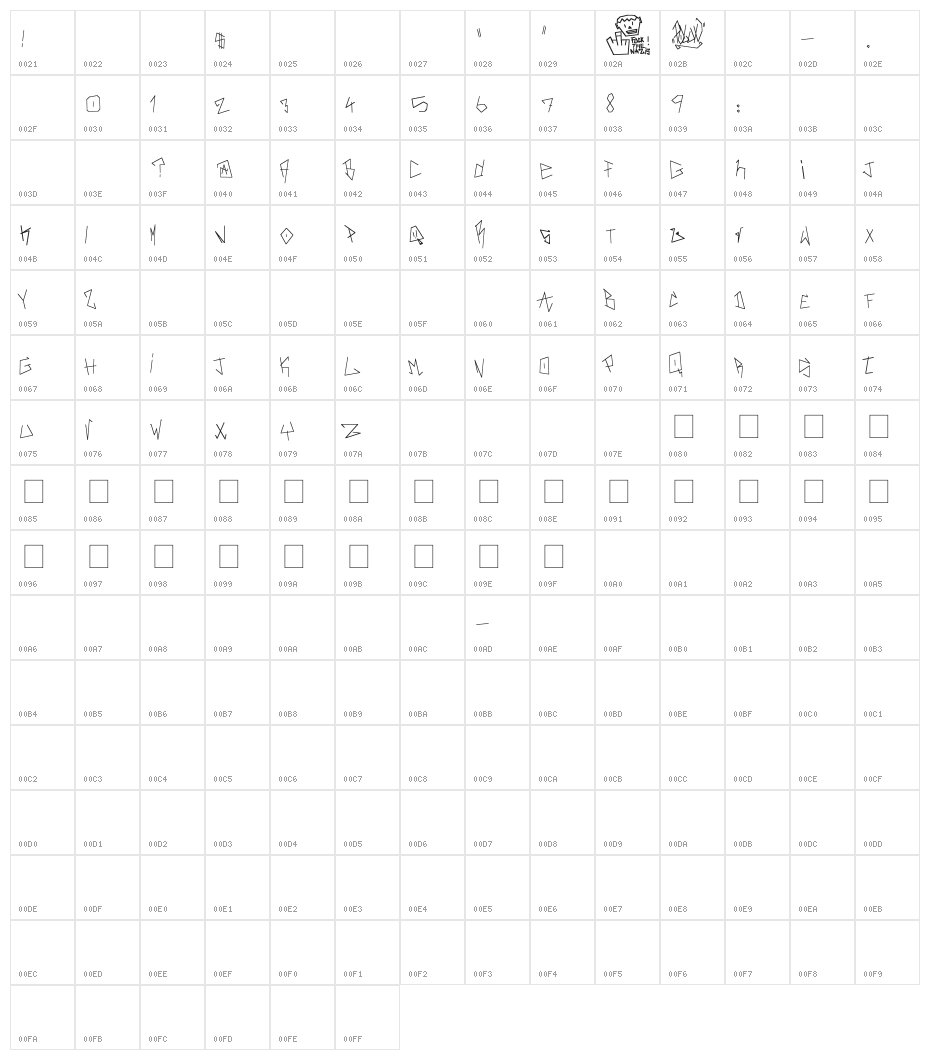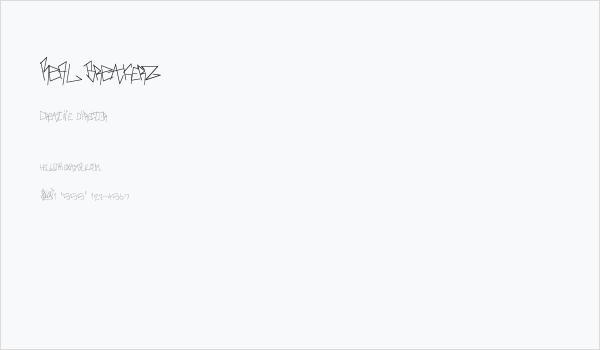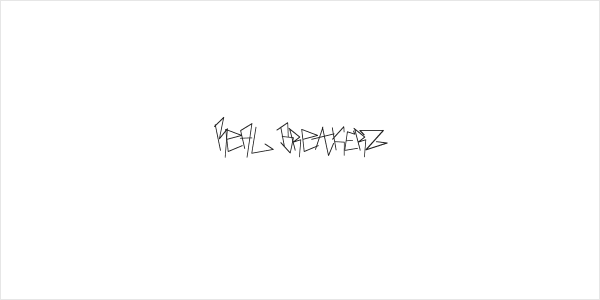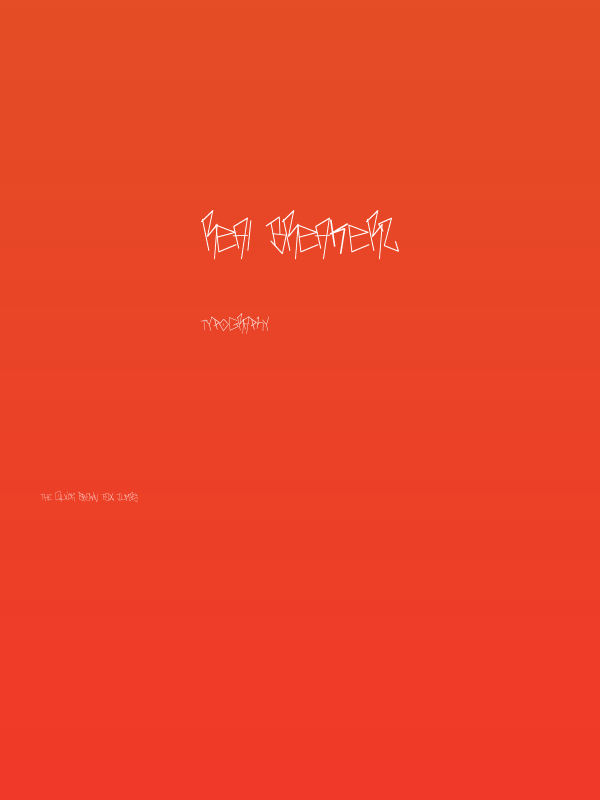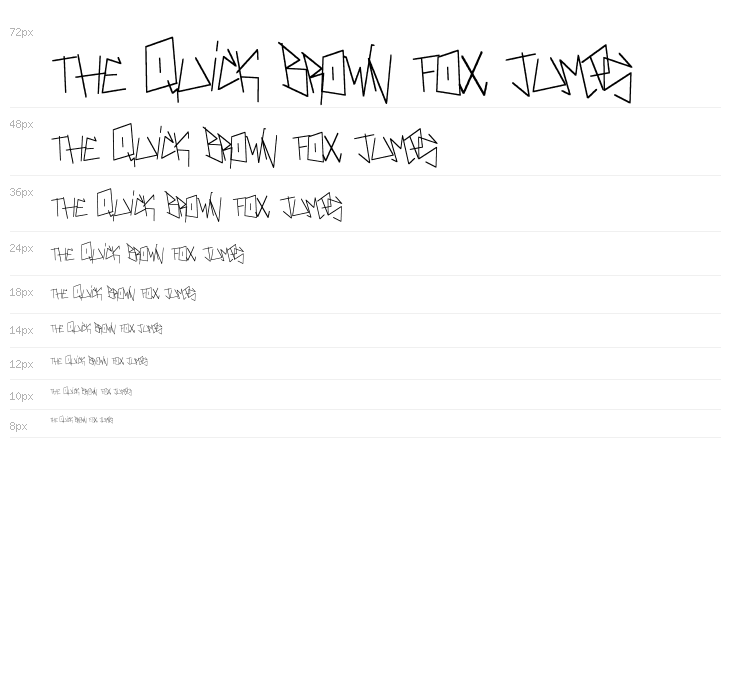
REAl BrEakerz Font
REAl BrEakerz Description
This font exhibits a highly stylized, graffiti-inspired design with sharp, angular lines and an edgy, rebellious aesthetic. The uppercase and lowercase letters are characterized by their jagged, irregular shapes, giving the impression of hastily drawn street art. The numbers and special characters follow the same theme, maintaining a consistent visual style throughout. The font's unique appearance makes it stand out, with each character appearing as if it was hand-drawn with a marker or spray paint. This design choice lends the font a raw, urban feel that is both dynamic and expressive.
REAL-BREAKERZ UPPERCASE
REAL-BREAKERZ LOWERCASE
REAL-BREAKERZ OTHER CHARS
| Overall Style | Urban, Edgy, Graffiti |
| Use Case | Logos, Posters, Album Covers |
| Proposed Projects | Ideal for street art projects, urban-themed posters, album covers, and edgy branding materials. |